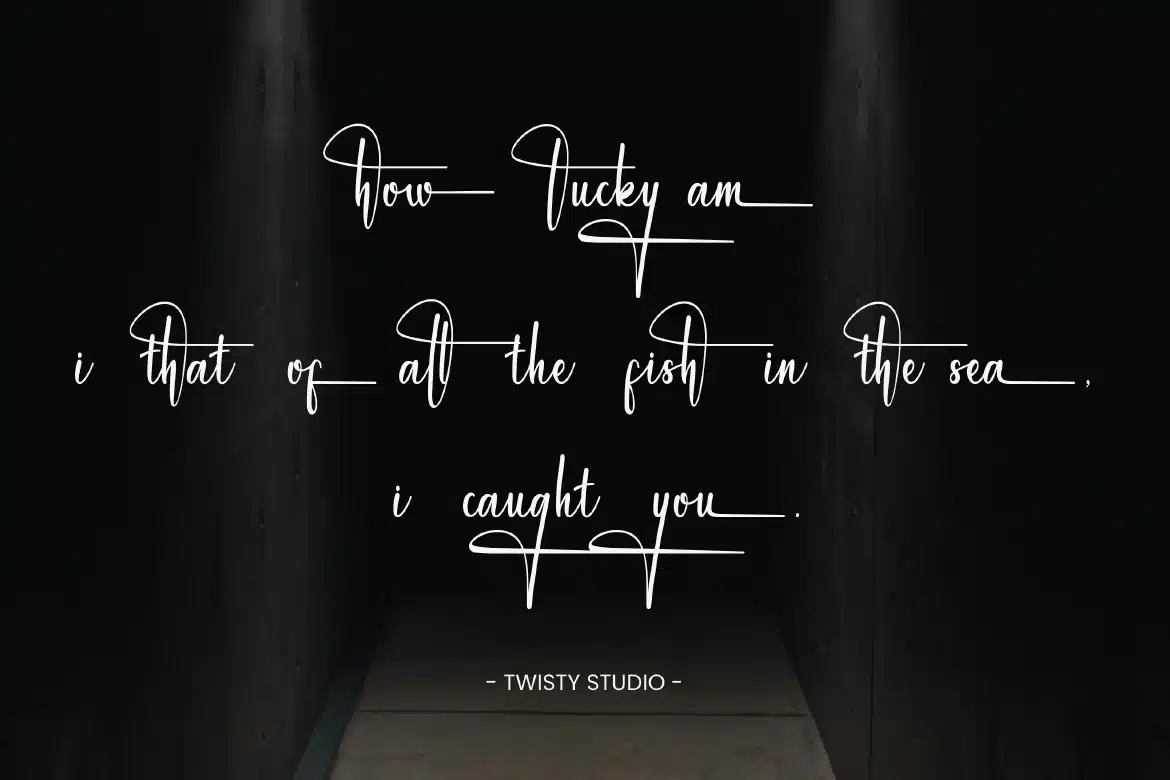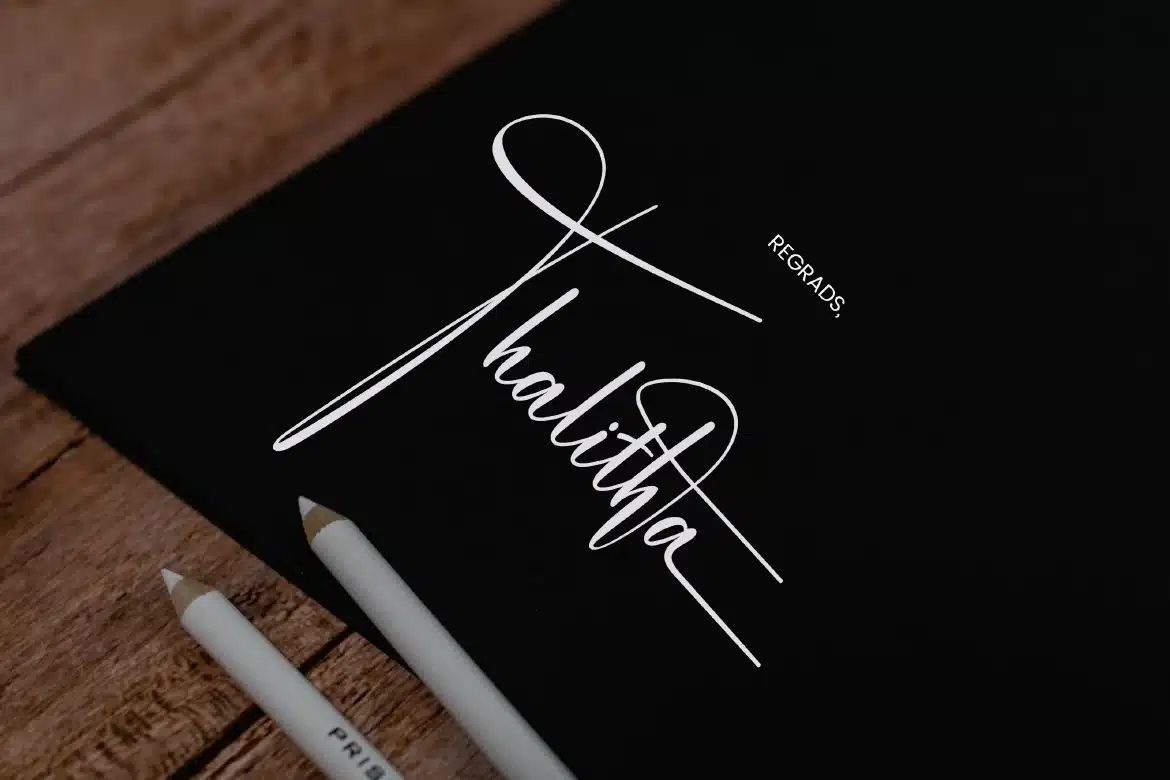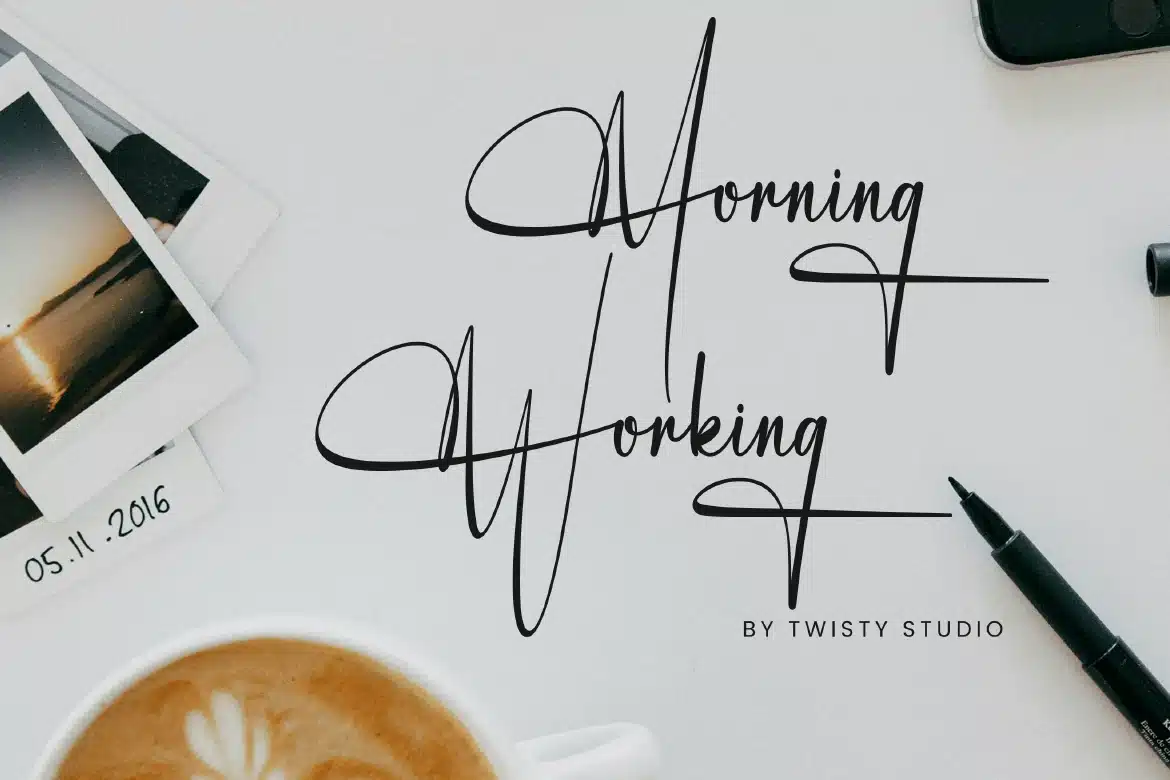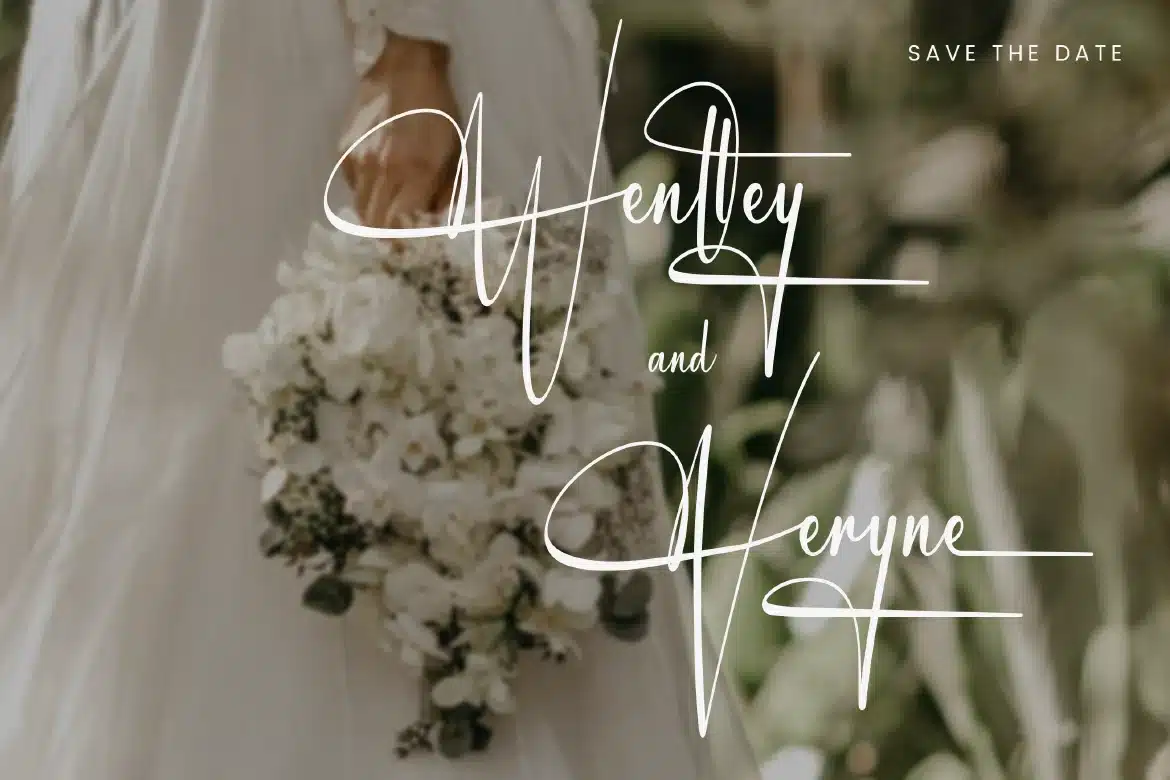
Handwritteen Script Signature Font – Norgehia
Handwritten Script Signature Font - Norgehia
Norgehia is a natural handwritten script signature typeface designed to capture the beauty of authentic pen strokes. With its smooth flow, slightly irregular lines, and elegant curves, Norgehia delivers a realistic signature look that feels personal and expressive. Its refined yet relaxed style makes it perfect for adding a human touch while maintaining a stylish and professional appearance. Whether for branding, invitations, or creative projects, Norgehia brings warmth and sophistication to every design.
Who Should Use Norgehia?
Norgehia is ideal for designers, creatives, and brands who want to showcase authenticity, personality, and elegance through typography. It’s especially suited for projects that require a handwritten signature feel with a polished and modern finish.
Signature logos and personal branding
Wedding invitations and stationery
Beauty and fashion design
Social media content
Packaging and product labels
Quotes and typography designs
Lifestyle and blog content
Elegant handwritten visuals